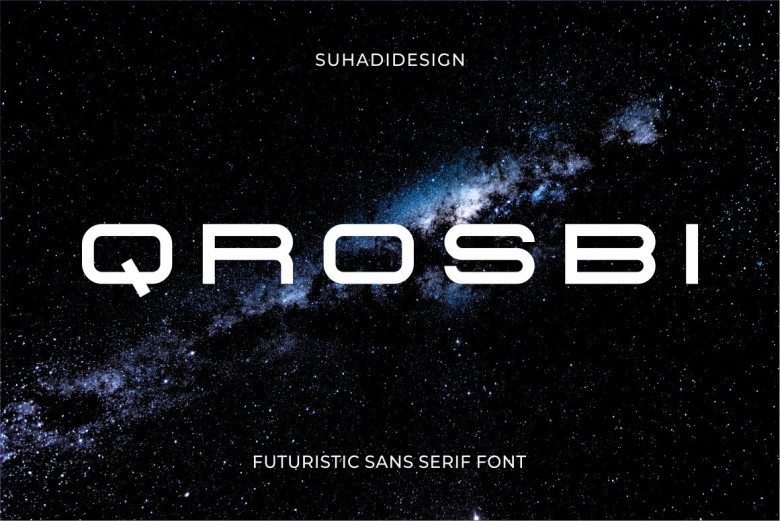
Qrosbi Font
Qrosbi is an elegant futuristic sans serif font. Love it for the multi-functional styling and employ it to design beautiful and stunning pieces! This font is crafted carefully and has geometric elements incorporated in it to make the font look symmetric and simple.
Qrosbi Sans Serif Font